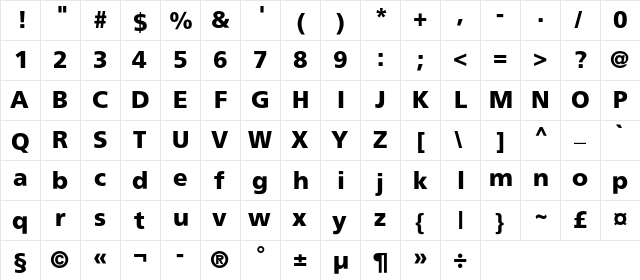
AGForeignerC Bold
Design Context for AGForeignerC Typeface
AGForeignerC takes a measured approach to typography — its balanced proportions and neutral character make it a reliable workhorse for both digital and print work. The heavy weight commands attention and anchors typographic hierarchies.